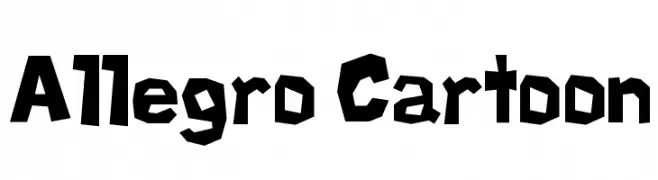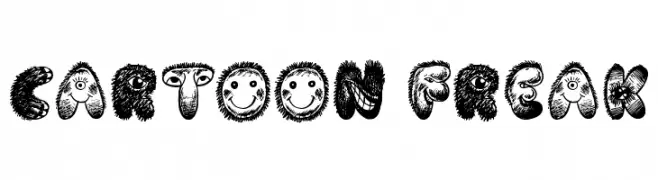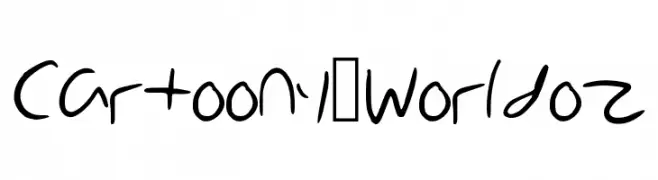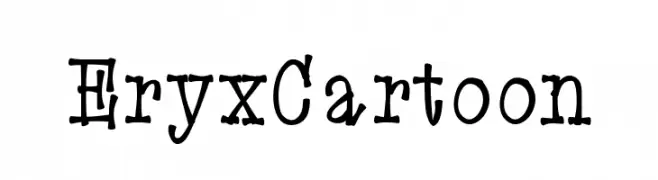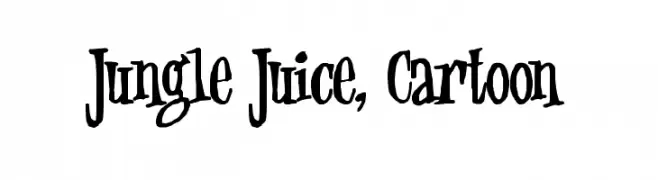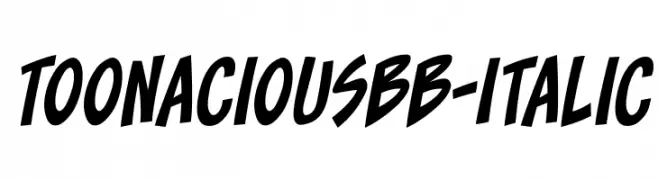
A playful, hand-drawn font with a 3D relief effect, perfect for comic and creative projects.
A playful, cartoonish font with snow-capped, blocky letters perfect for festive designs.
A playful, hand-drawn font with a whimsical, cartoon-like style.
A playful, hand-drawn outline font with a whimsical and cartoonish style.
A playful, hand-drawn font with a whimsical and informal style.
A playful, bold, and cartoonish font with irregular, dynamic shapes.
A playful, bold font with rounded, bubbly characters perfect for fun designs.
A bold, playful font with a cartoonish style and strong presence.
A bold, playful font with rounded, bubbly characters perfect for fun designs.
A playful, bubbly font with rounded, bold characters and a cartoonish style.
A playful, bubbly font with thick outlines and a cartoonish style.
A playful, rounded font with a smooth, modern design.
A playful, handwritten font with bold, dynamic strokes and a whimsical aesthetic.
A playful, hand-drawn font with irregular, whimsical characters.
A bold, sketch-like font with a playful and dynamic style.